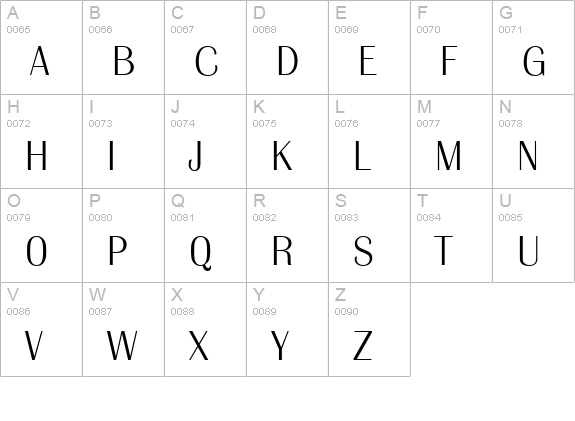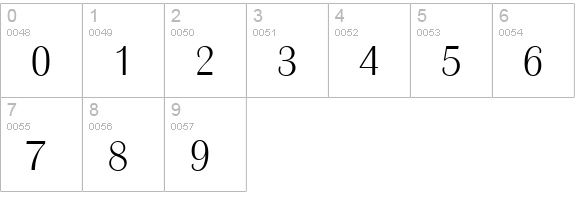
GrenobleSerial-Xlight-Regular Font Details
GrenobleSerial-Xlight-Regular is the standard, neutral variant in the GrenobleSerial typeface family \xE2\x80\x94 well suited to general body text, paragraphs, and standard typographic work.
GrenobleSerial-Xlight-Regular font is a sleek and elegant typeface that exudes sophistication and modernity. Its slender letterforms and subtle curves make it perfect for a wide range of design projects, from branding to editorial design. This font is versatile and can be used for both headers and body text, adding a touch of refinement to any project. The best part? GrenobleSerial-Xlight-Regular font is completely free to download at FontsMarket.com. You can easily access this beautiful typeface and elevate your designs without any cost. Don't miss out on this opportunity to enhance your creative projects with the timeless charm of GrenobleSerial-Xlight-Regular font. Download it today and start creating stunning visuals that will leave a lasting impression.